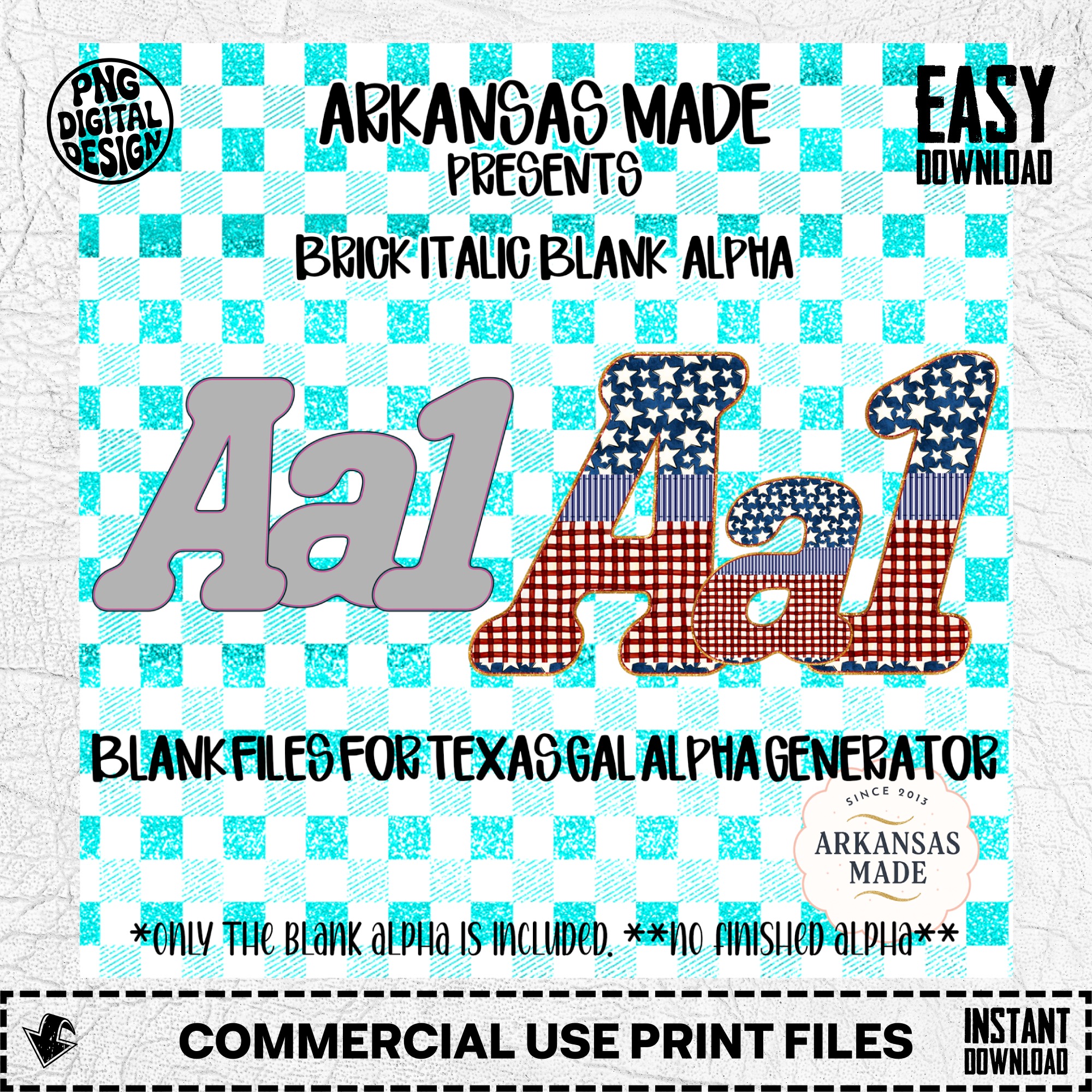
Unlock endless design possibilities with our Brick Italic Blank Digital Alpha PNGs, perfectly crafted for the Texas Gal Alpha Generator app. This versatile digital alphabet provides clean, blank outlines for your custom sublimation projects and DIY crafts, allowing you to add your own patterns and textures. Ideal for digital crafters, graphic designers, and small business owners creating unique personalized apparel or accessories. Please note: This listing includes only the blank alpha files; no pre-designed or filled alphabets are included.